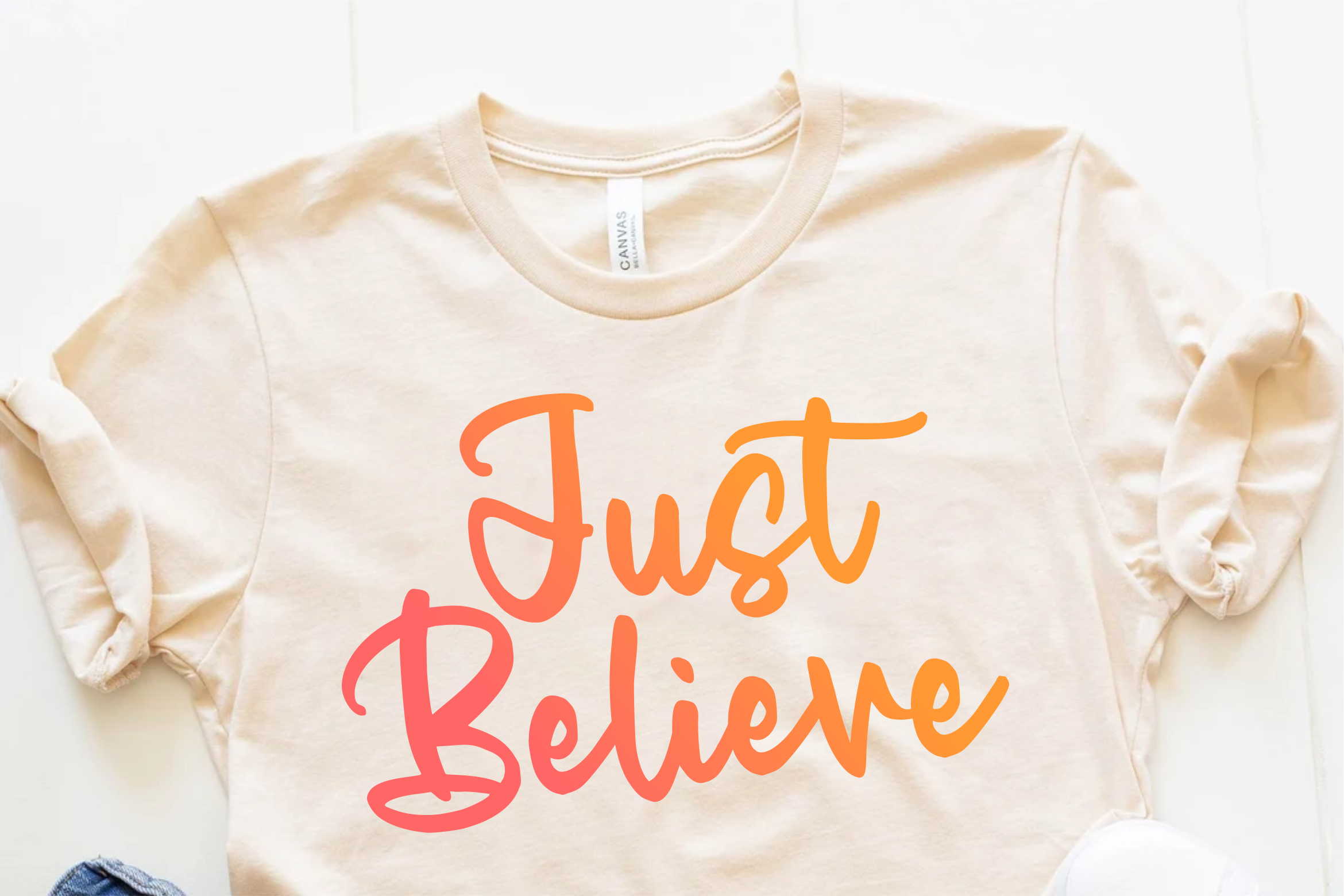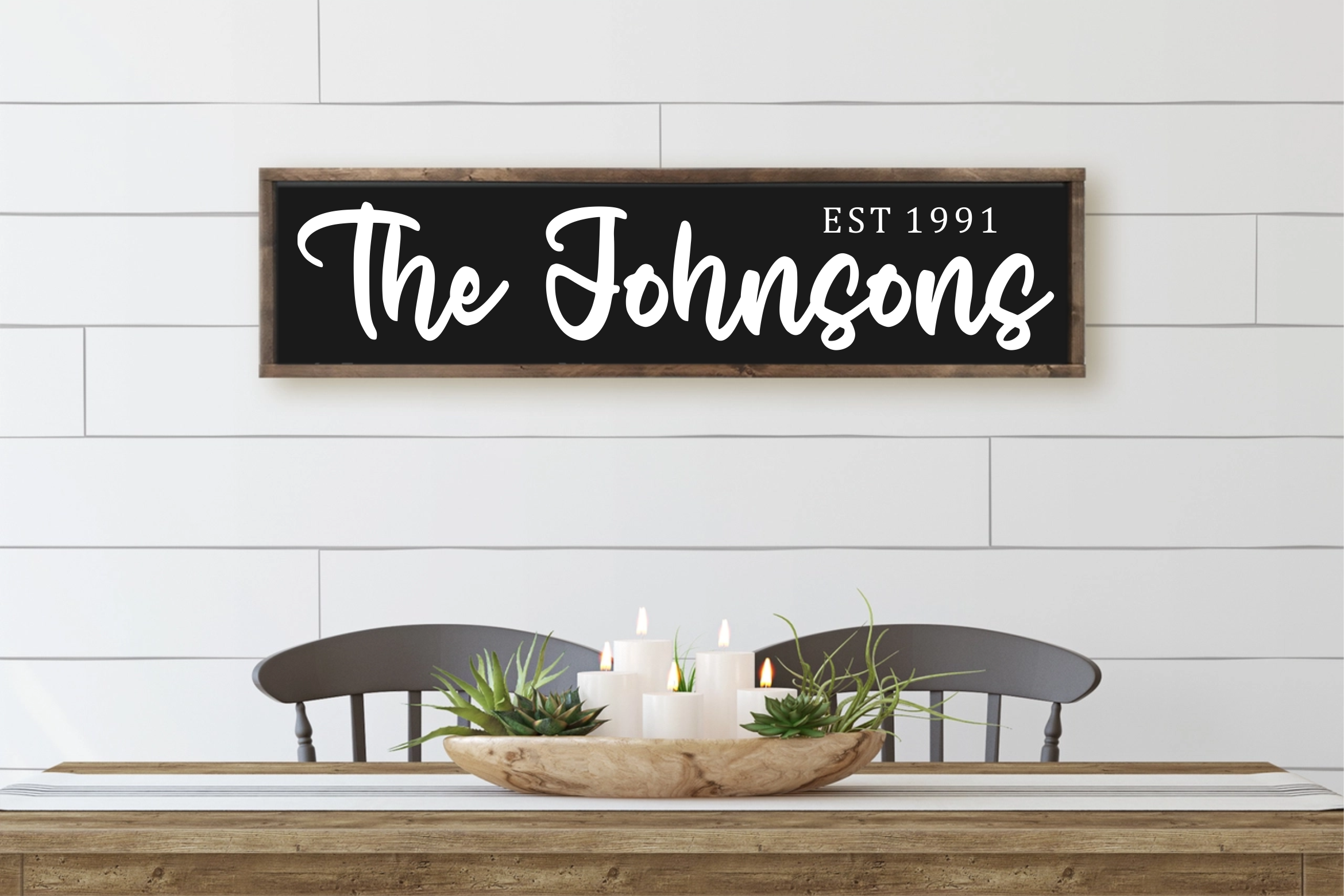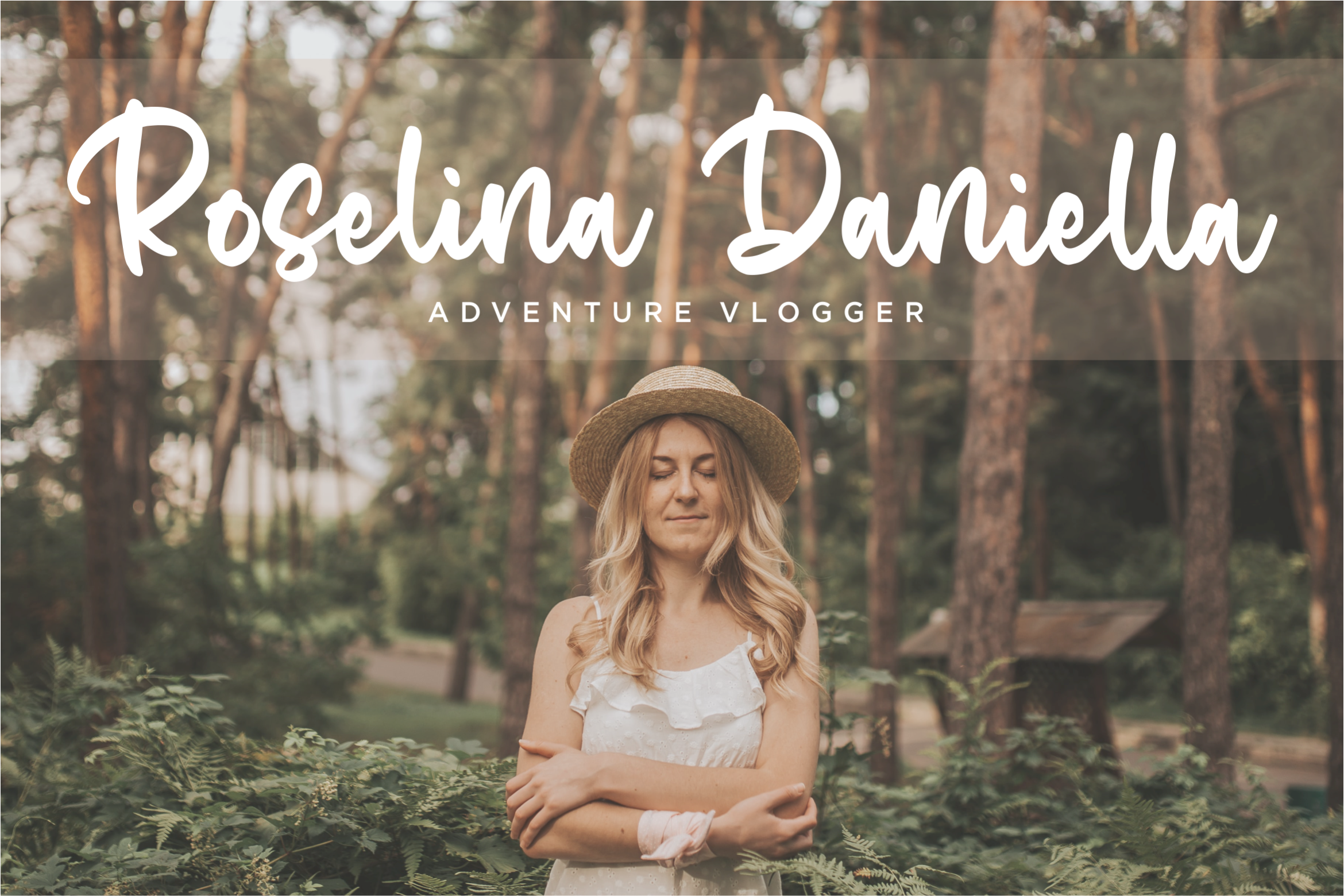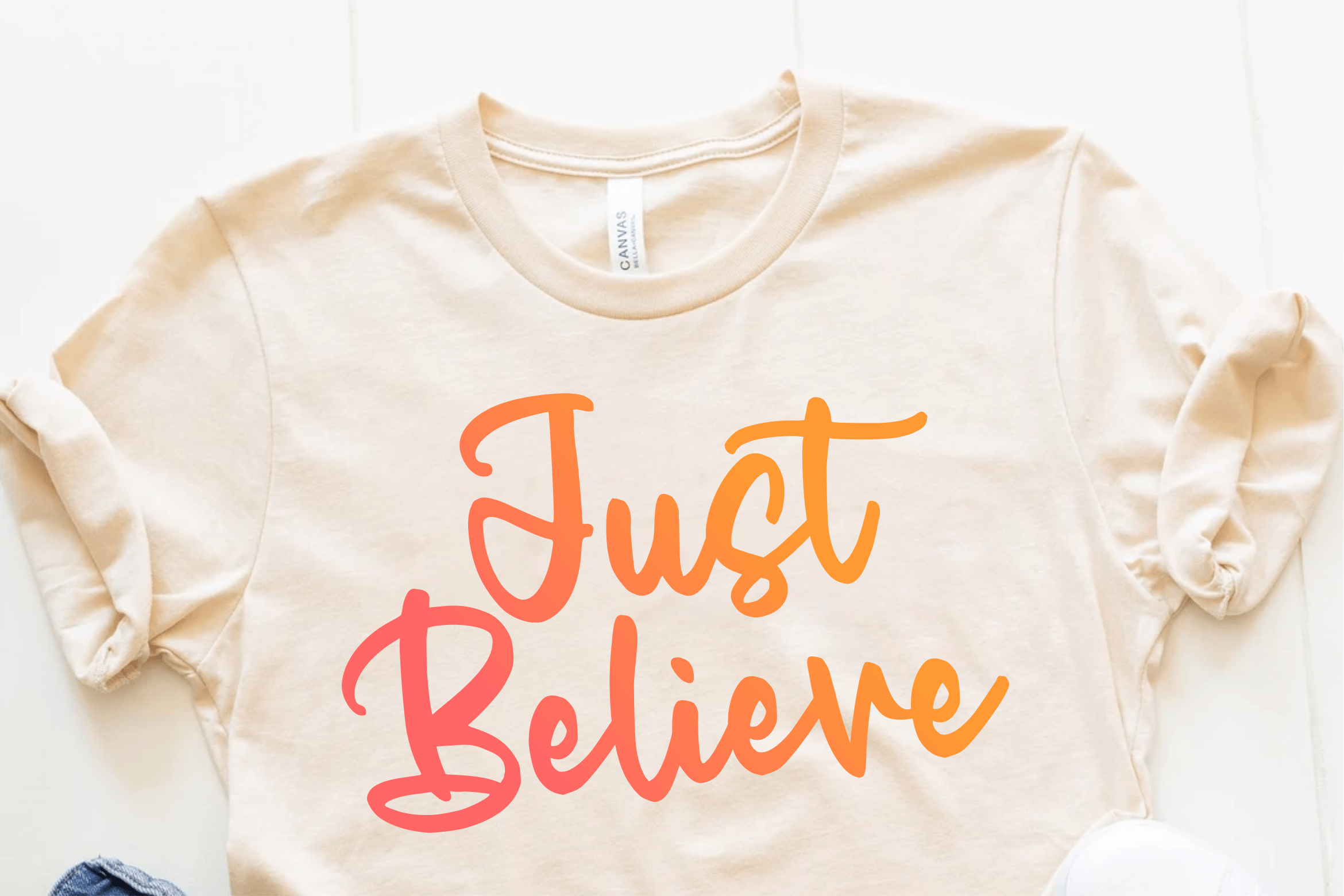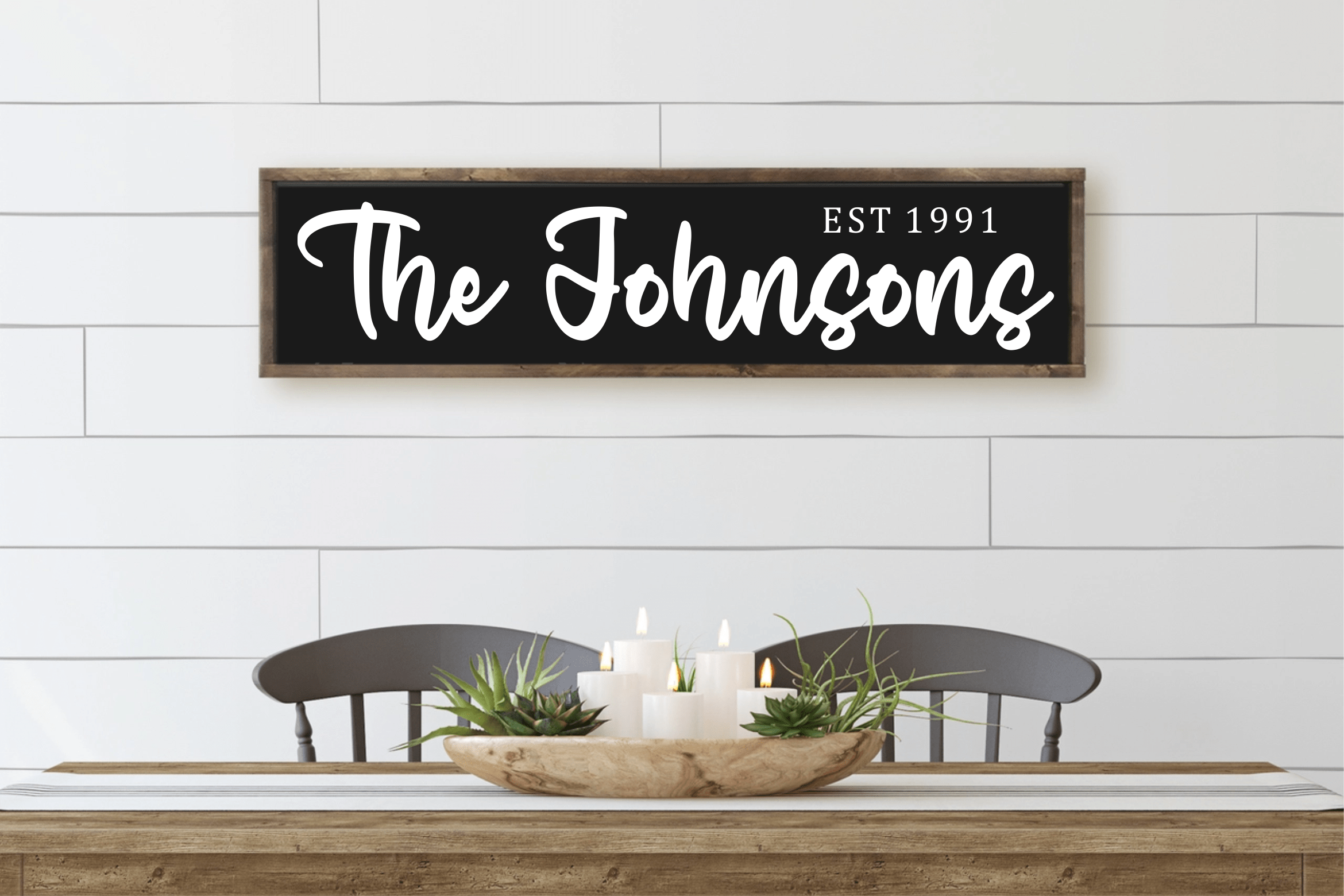
Hillgoldie Font
Hillgoldie Script Font
This is a sweet and well-balanced script font. It is perfect for product packaging, branding project, magazine cover, social media, wedding, or just used to express words above the background.